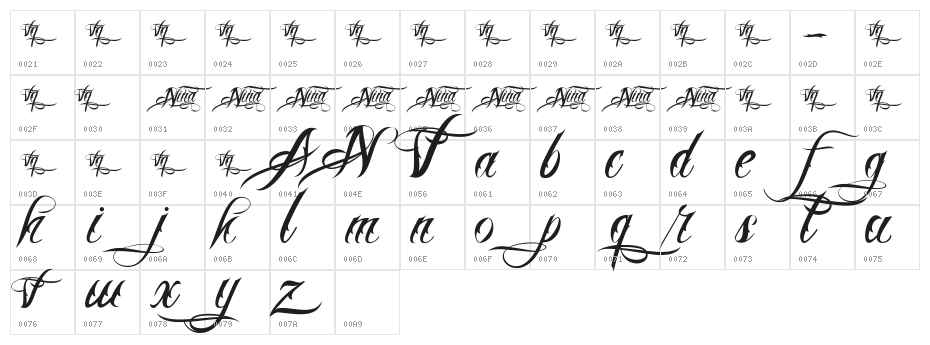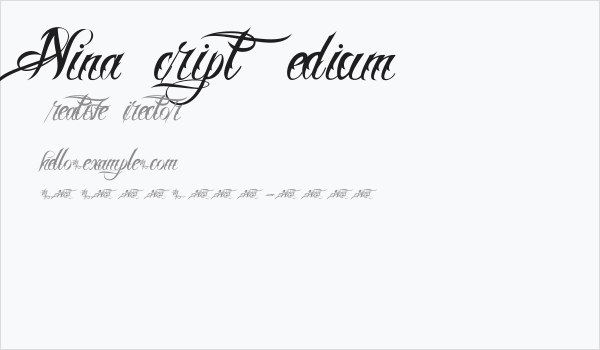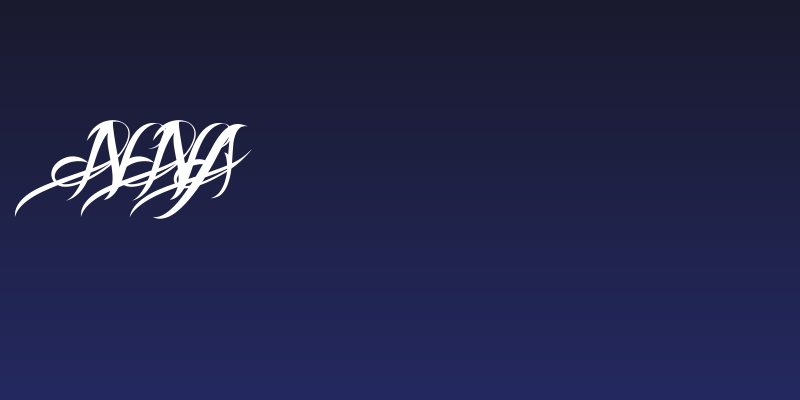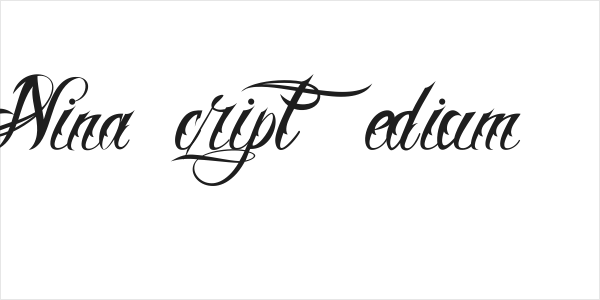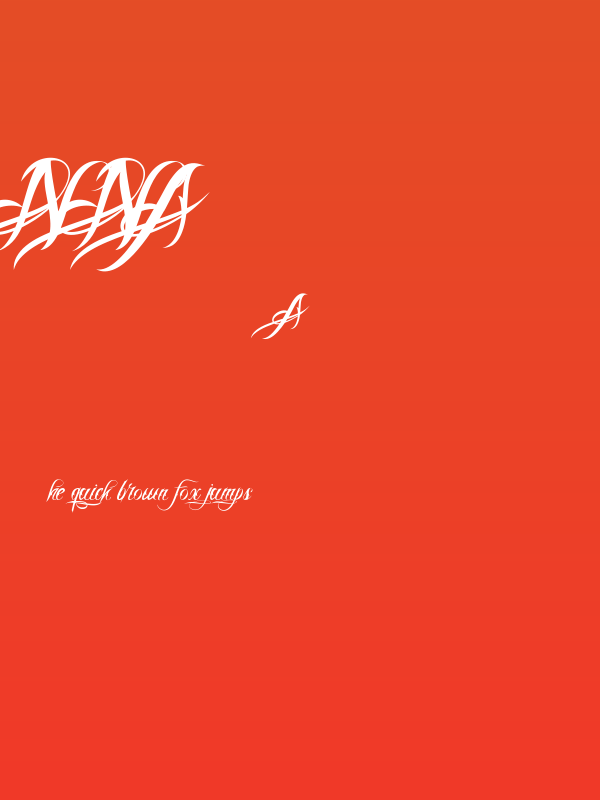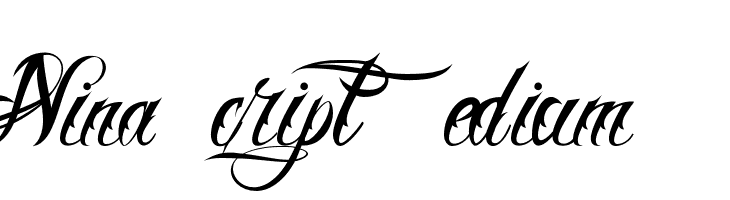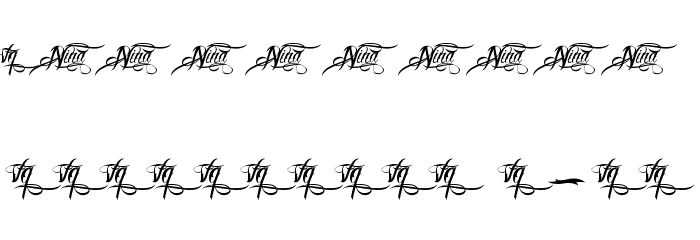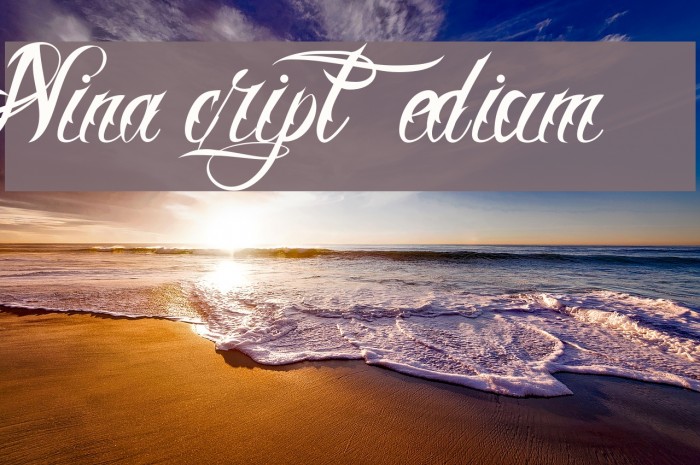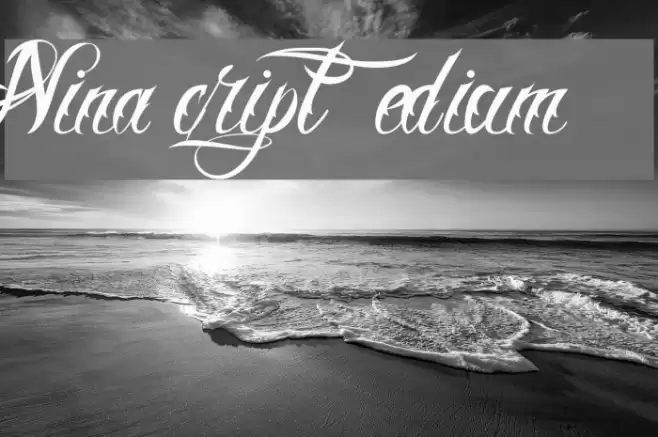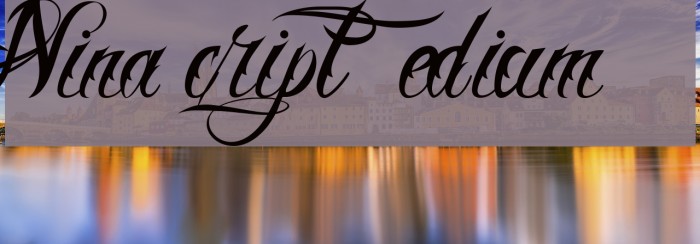
Nina Script Medium Font
Nina Script Medium Description
This elegant script font features flowing, interconnected letters with a classic calligraphic style. The uppercase letters are ornate, with elaborate swashes and flourishes that add a touch of sophistication and luxury. The lowercase letters maintain a consistent flow, enhancing readability while preserving the decorative nature of the font. The overall design is reminiscent of traditional handwriting, making it suitable for formal invitations, certificates, and branding that requires a touch of elegance. The font's intricate details and smooth curves make it stand out, offering a timeless and refined aesthetic.
| Overall Style | Classic |
| Proposed Projects | Ideal for wedding invitations, luxury branding, certificates, and elegant packaging. |